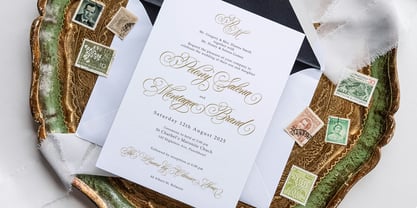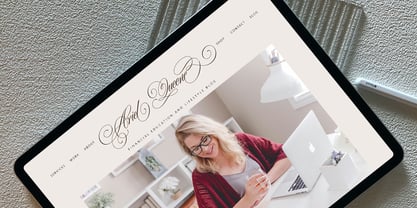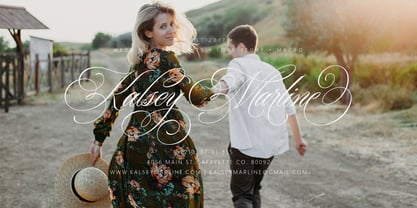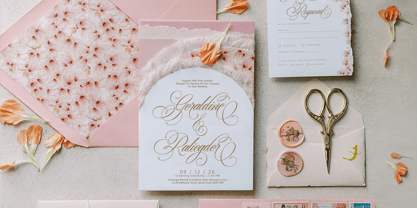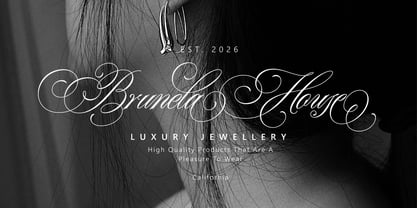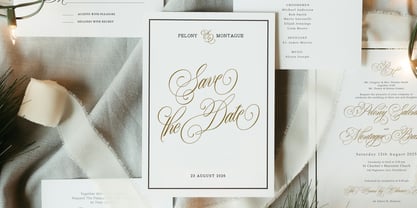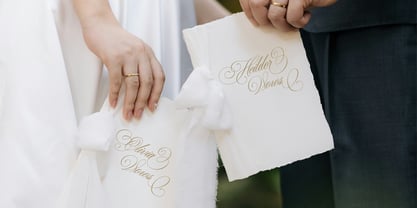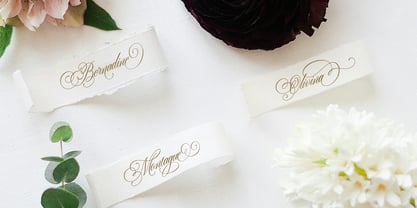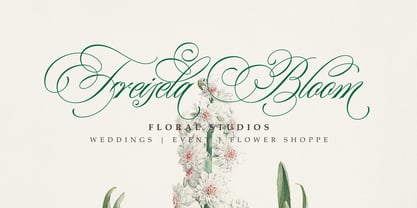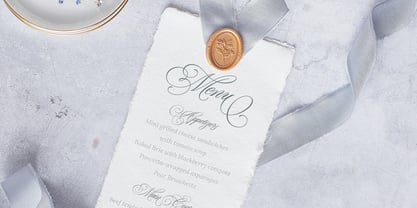
Dear Victoria
by Jamalodin
The Dear Victoria Font Family was designed by Jamaluddin and published by Jamalodin. Dear Victoria contains 1 styles.
Dear Victoria Script is a new classic calligraphy font that is suitable for branding, wedding invitations, greeting cards, posters, name card, quotes, blog header, logo, fashion, apparel, letter, stationery and other projects.